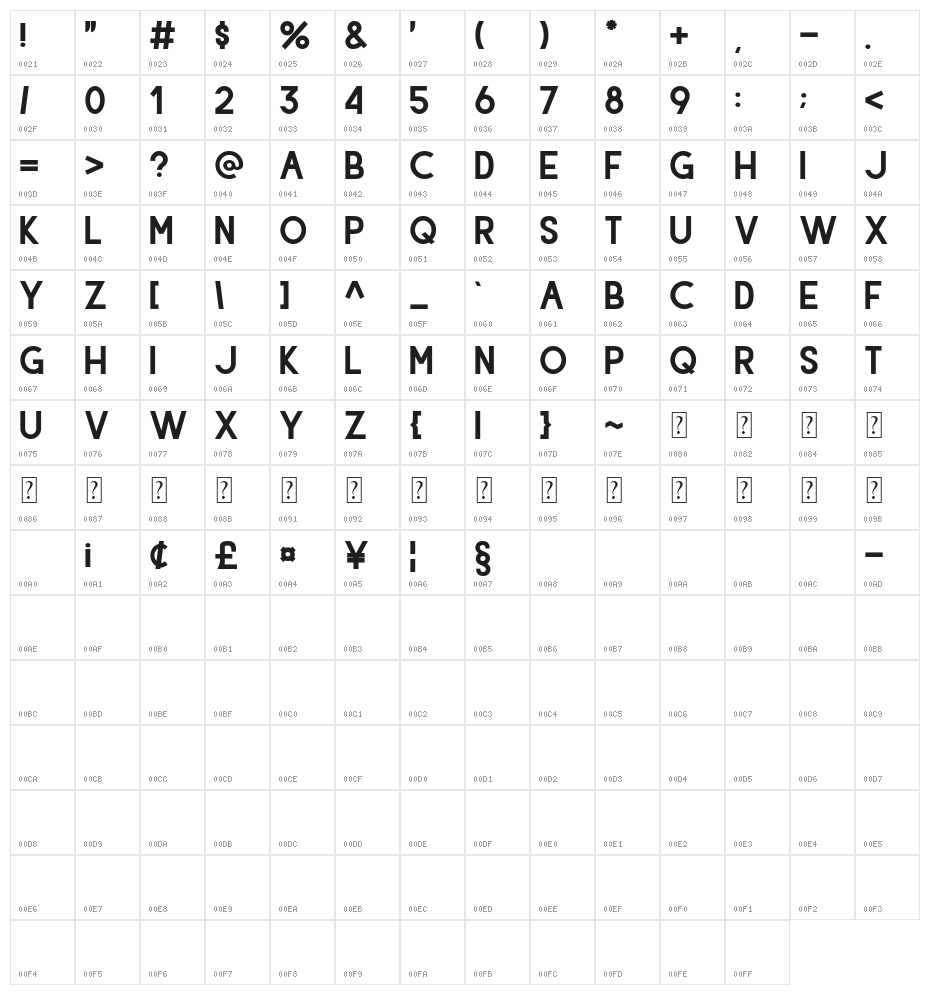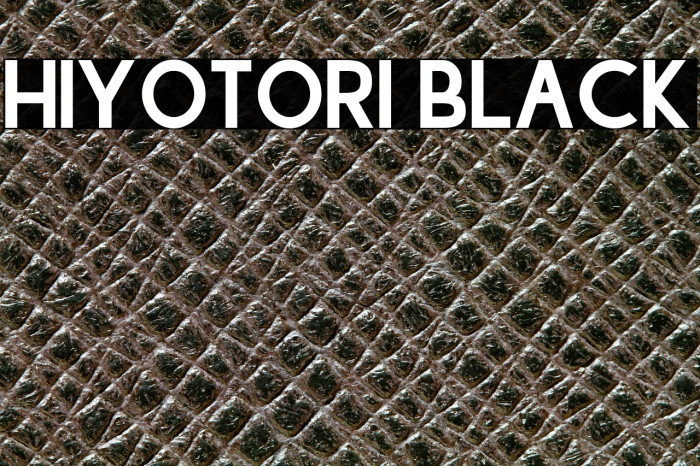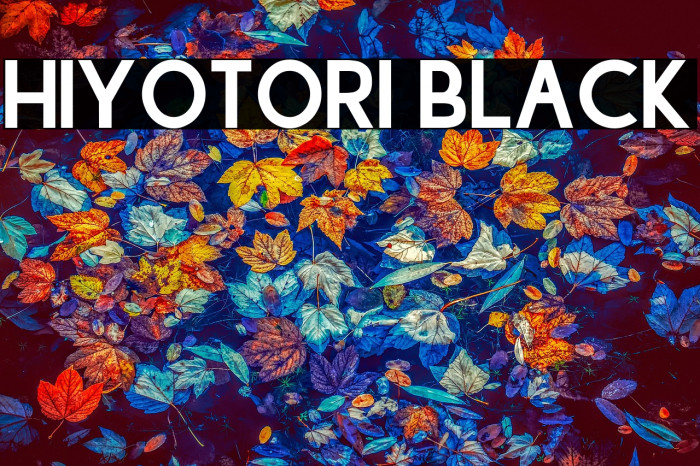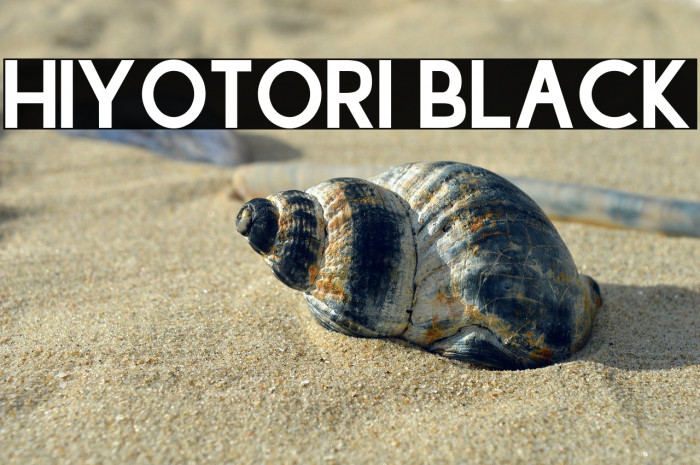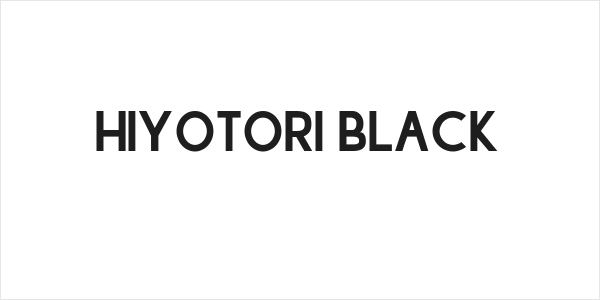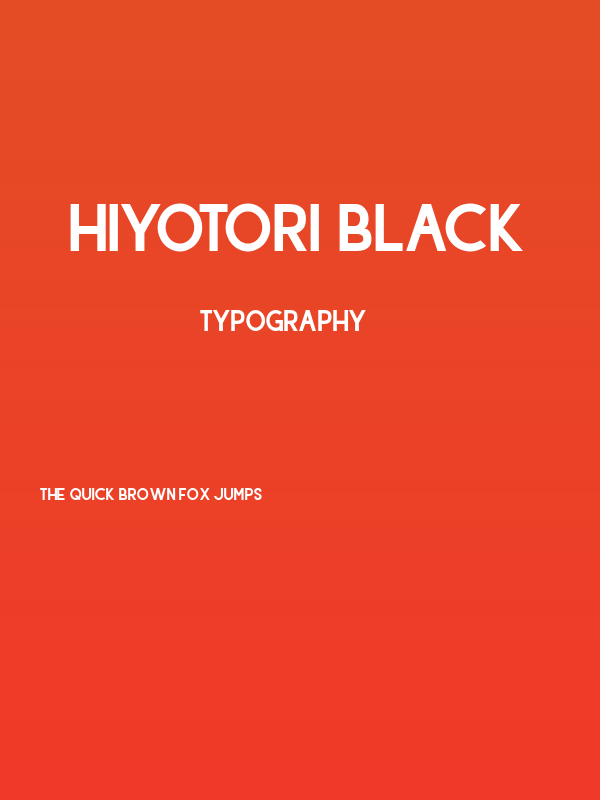
Hiyotori Black Font
Hiyotori Black Description
This font features bold, geometric letterforms with a strong presence. The characters are uniformly thick, creating a sense of stability and modernity. The uppercase letters are particularly striking, with clean lines and a consistent stroke width that conveys a sense of authority and confidence. The numerals are equally bold, ensuring they stand out in any context. Special characters are designed with the same attention to detail, maintaining the overall aesthetic. This font is ideal for making a bold statement, whether in print or digital media.
| Proposed Projects | Ideal for branding, headlines, posters, and any project requiring a bold, modern look. |